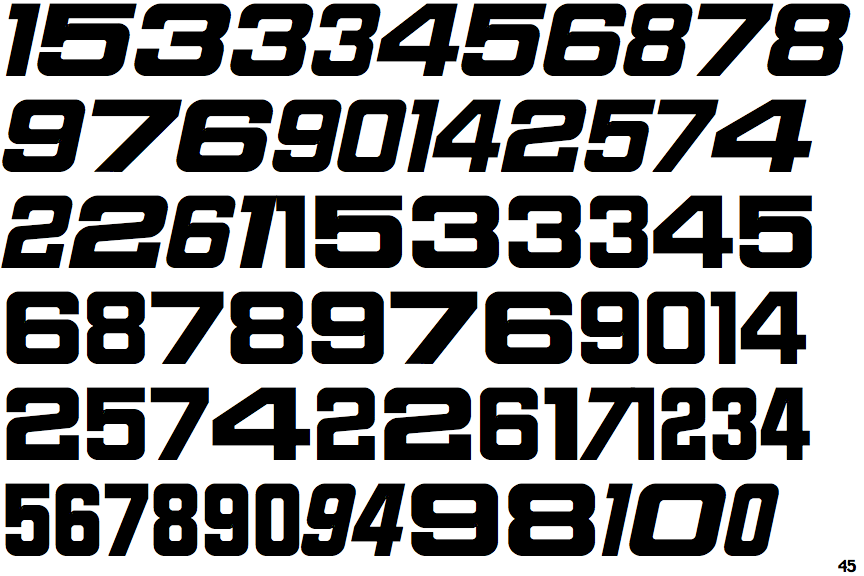
Sports Number Font Name. Sports jersey font contains 654 defined characters and 48 unique glyphs. Size athletic by edward a.
This font is created in 2010 and is perfectly ideal for clothing and apparel design, team logos and etc. 11 cool images of high school sports block font. Generate a custom football, soccer, or basketball jersey with these sporty fonts.
The Letters Follow The Same Design, Providing A Cohesive Look Across A Website Or In Print.
Sport numbers contains classic sport number designs, similar to those that appear on sport uniforms and competition ve. The font contains characters from the following unicode character ranges: Awesome high school sports block font images.